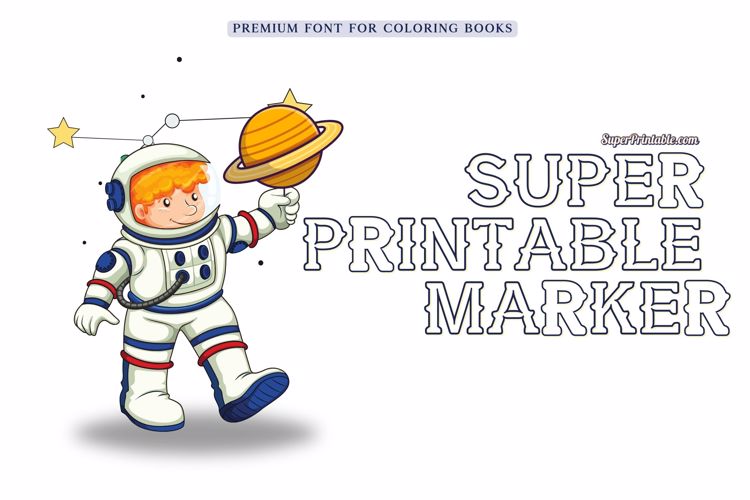
Super Printable Marker Font
A fun, kid-friendly outline marker font perfect for coloring books, worksheets, and creative printables. Free for personal use!